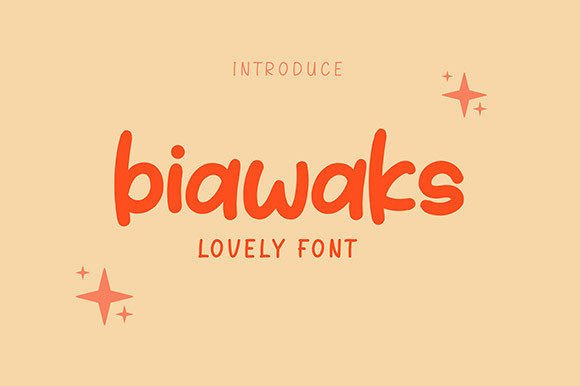
Behold Biawaks, the enchanting script font that will transform your creative visions into masterpieces. Its elegant lines and flowing curves evoke a sense of timeless beauty, adding a touch of sophistication and charm to every project you undertake.
With Biawaks, you'll find yourself immersed in a world of endless possibilities. Create mesmerizing quotes that capture the essence of your thoughts and emotions. Design logos that radiate elegance and leave a lasting impression on your audience. Craft blog headers that draw readers in and keep them captivated from the very first moment.
Let your imagination soar as you use Biawaks to create posters that speak volumes and ribbons that add a touch of whimsy. Infuse your fashion and clothing designs with a unique flair, turning ordinary garments into works of art. Personalize letters and invitations with a handwritten touch that conveys your heartfelt sentiments. Elevate your stationery with a touch of grace, making every correspondence a cherished keepsake.
The versatility of Biawaks extends far beyond these examples. Its graceful presence enhances quotes, logos, blog headers, posters, ribbons, fashion, clothing, letters, invitations, stationery, and so much more. Unleash your creativity and explore the countless ways Biawaks can transform your projects into extraordinary expressions of your artistic vision.